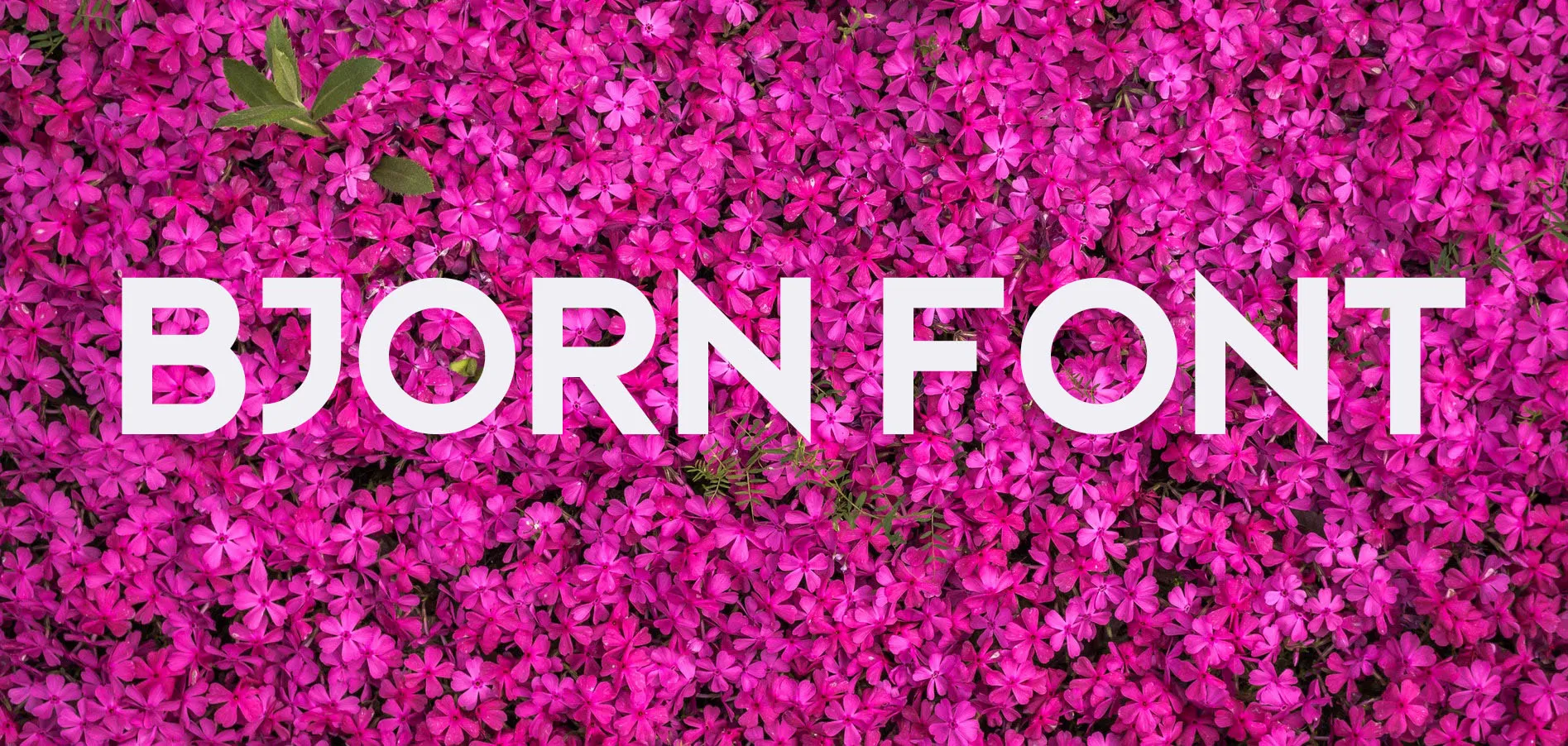
Bjorn Font Family is a modern bold typeface that was belonging to the sans-serif typeface. This good-looking typeface is providing a high-quality glimpse for designs. This extraordinary is created by Tugcu Design Co that was designed with sharp corners and this typeface has characters same as the display typeface.
It can bring versatility to the designs when using this typeface with the pairing of Scrip Mt Bold font. This font family contains three stylish weights including Regular, Bold, and Italic and the styles of the typeface are perfect for any design like logos, posters, and headlines.
Bjorn Font